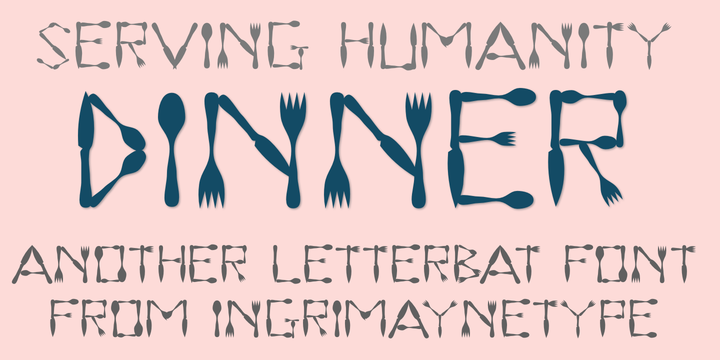
Dinner
Designed by: Robert Schenk
Designed when: 1990
Dinner
Dinner is a novelty font in which all the letters are formed from knives, forks and spoons.